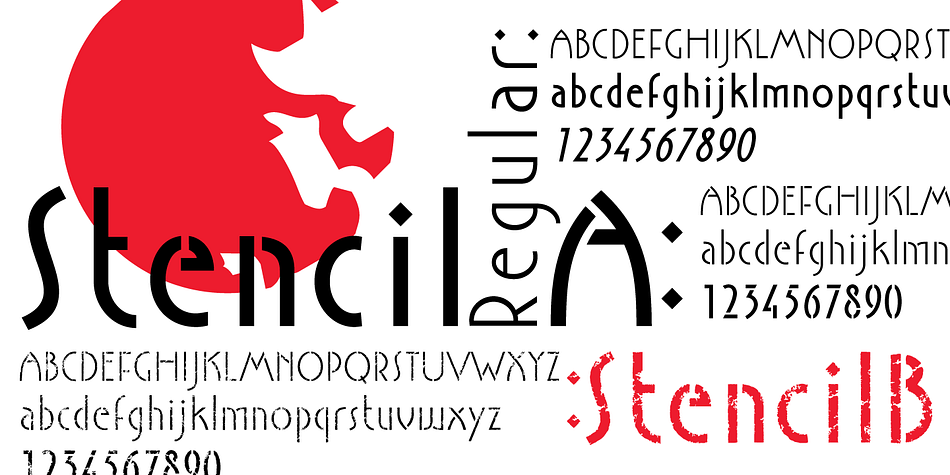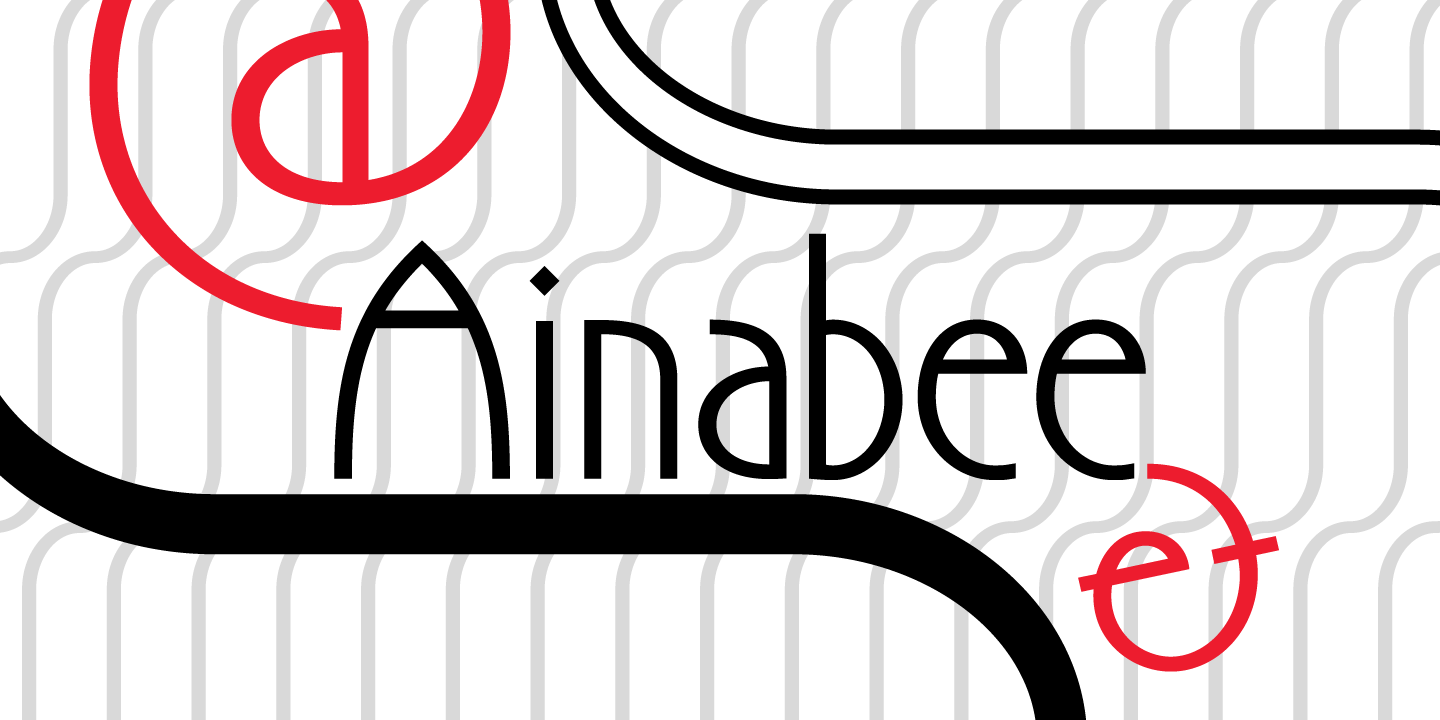
Designed by Torleiv Sverdrup, P22 Ainabee Pro is a grunge, stencil and art deco font family. This typeface has eight styles and was published by International House of Fonts.
Ainabee is an Art Deco inspired type design.
The designer states: “The Art Deco period has always fascinated me. The architecture, the furniture, the car industry, letters etc, much of what I associate with 20s and 30s. This design is my answer to this fascination. The name is a tribute to my girlfriend Aina.”
The design is simple and precise in its form and is intended mainly for decorative use.